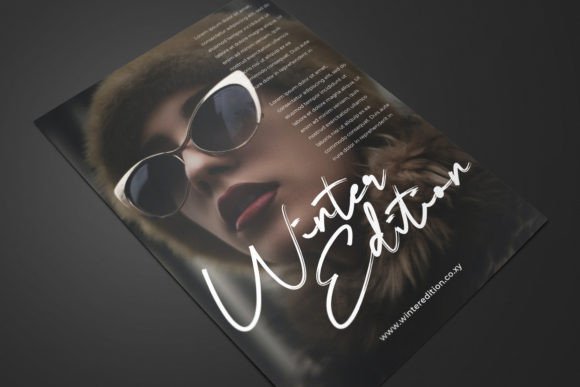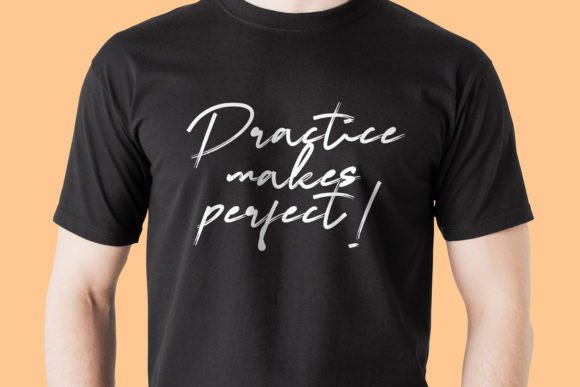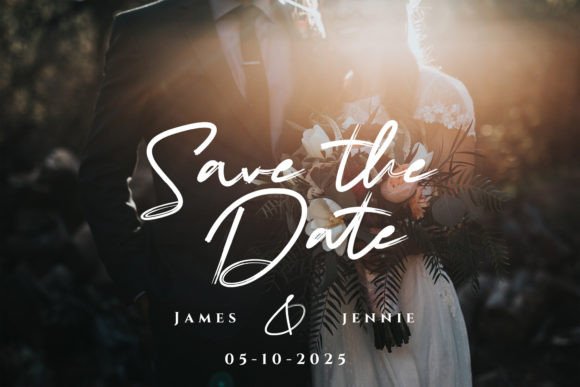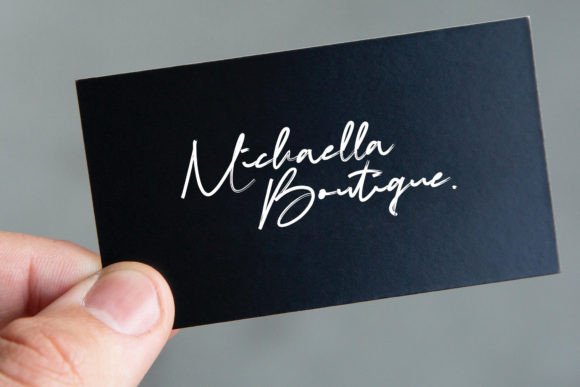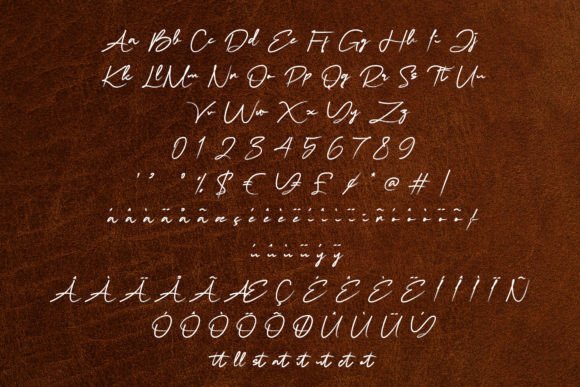
Introduction to Elometha Font
Remember that moment when you finally find the perfect font to bring your creative project to life? It’s like discovering a missing piece of a puzzle, and everything falls into place. For many designers, this moment is elusive, but with the right tools, it’s within reach. One such tool is the Elometha Font, a delicate, elegant, and flowing handwritten font that has been making waves in the design community.
Whether you’re working on a personal project or a high-quality design for a client, Elometha Font is an excellent choice. Its beautiful and well-balanced characters make it a versatile design resource that can be used across a wide range of projects, from wedding invitations to blog posts, and even free download resources for designers.
Key Features of Elometha Font
- High-quality design font, perfect for creative projects and presentations
- Elometha Font is a versatile design resource, suitable for a wide range of creative projects, from logos and branding to digital art and typography
Honest Review: Elometha Font
I recently stumbled upon the Elometha Font, and I must say it’s been a game-changer for my creative project. With its high quality and sleek design, I’ve been able to elevate my graphics to the next level.
One limitation I’ve noticed is that the font may not be suitable for all design styles. It’s a bit on the modern side, so it may not work well with more traditional or vintage-themed projects.
Overall, I’m really impressed with the Elometha Font. It’s a great addition to any designer’s toolkit, and I’ve already used it in several of my projects. If you’re looking for a high-quality, modern font that’s perfect for creative projects, I would definitely recommend giving it a try.
For optimal results, experiment with different font sizes, colors, and layering techniques. This font is highly versatile, so don’t be afraid to try new combinations.
Common Use Cases for Elometha Font
The Elometha Font is perfect for:
- Designing logos and branding materials.